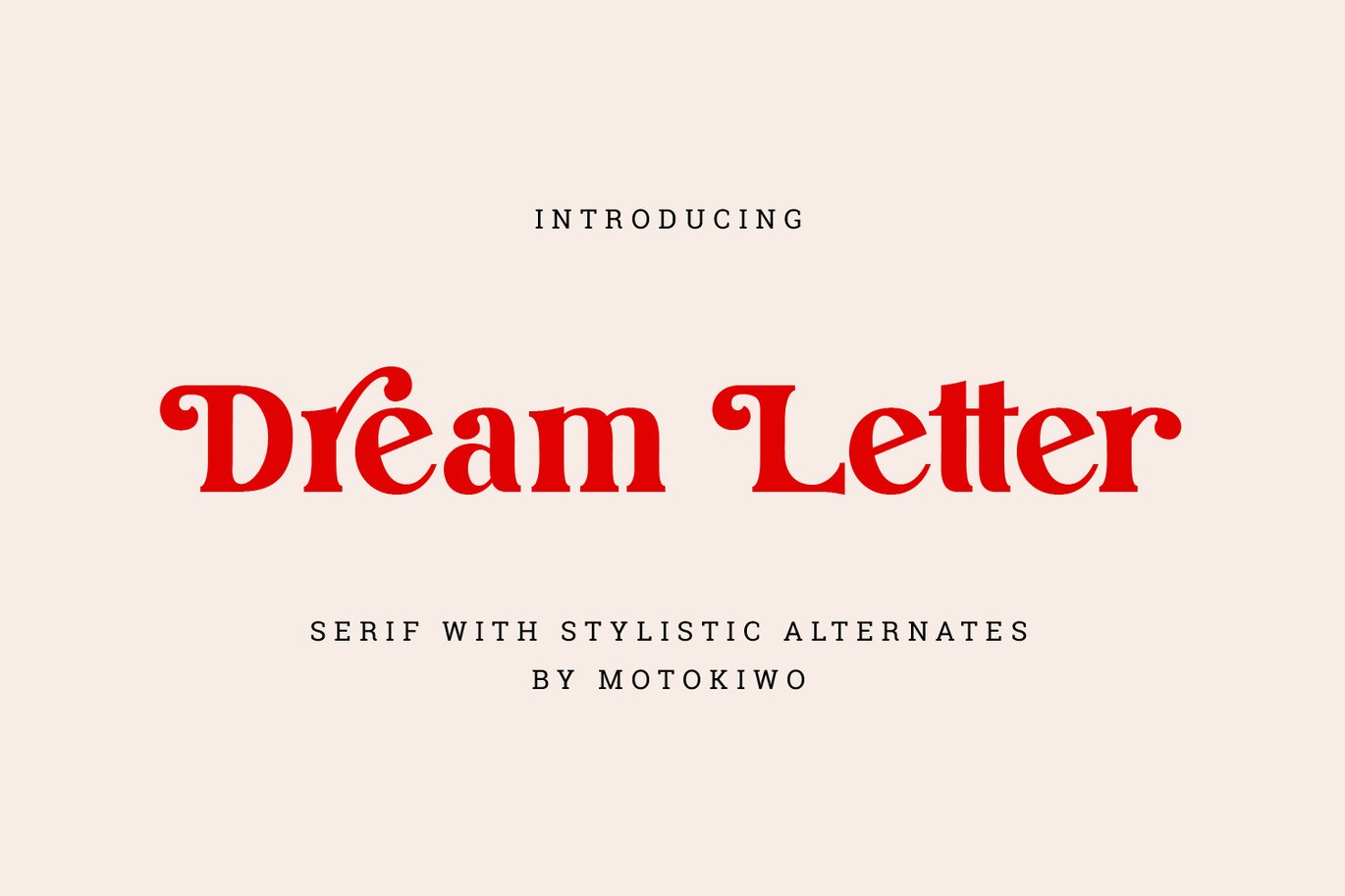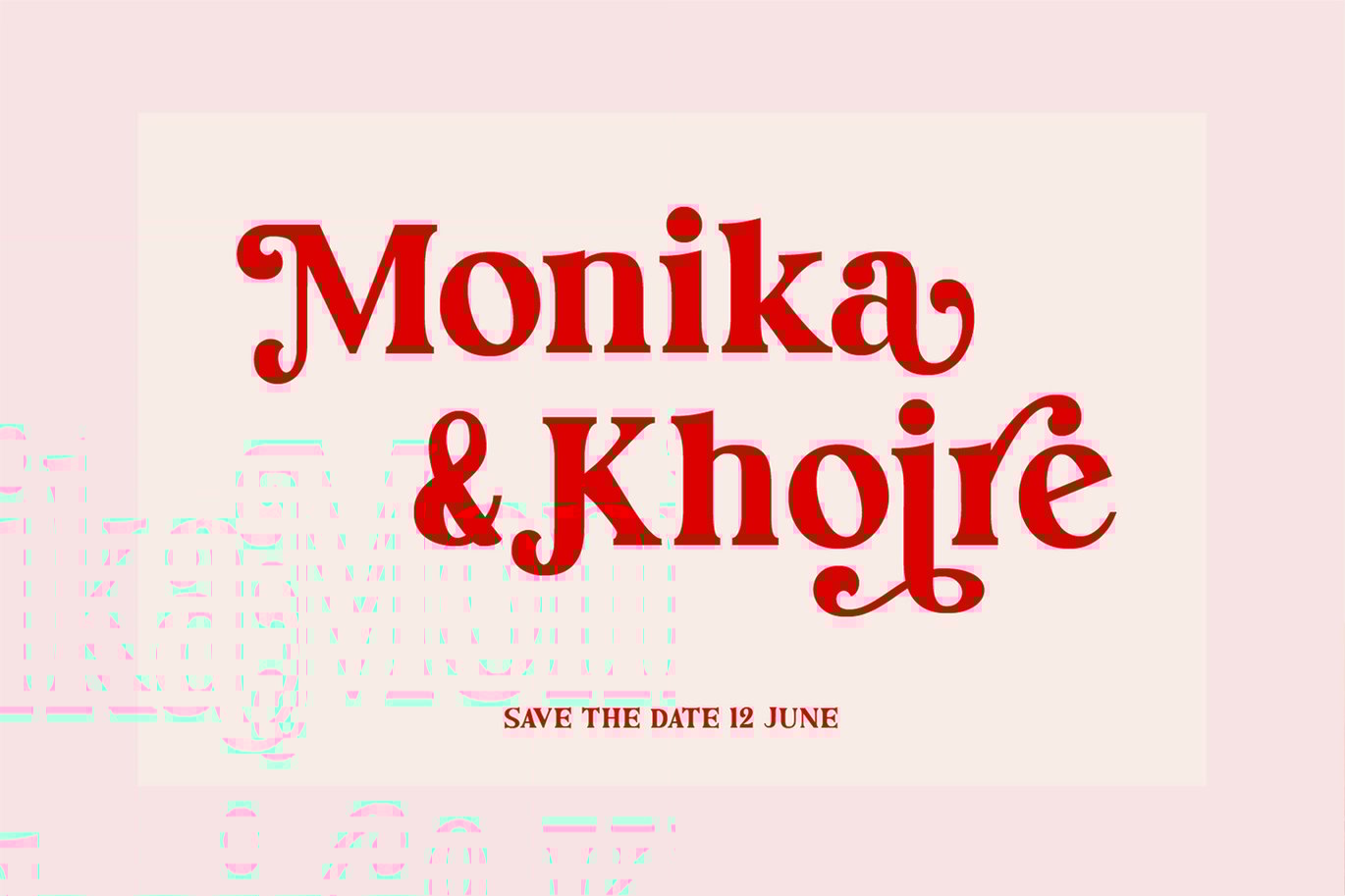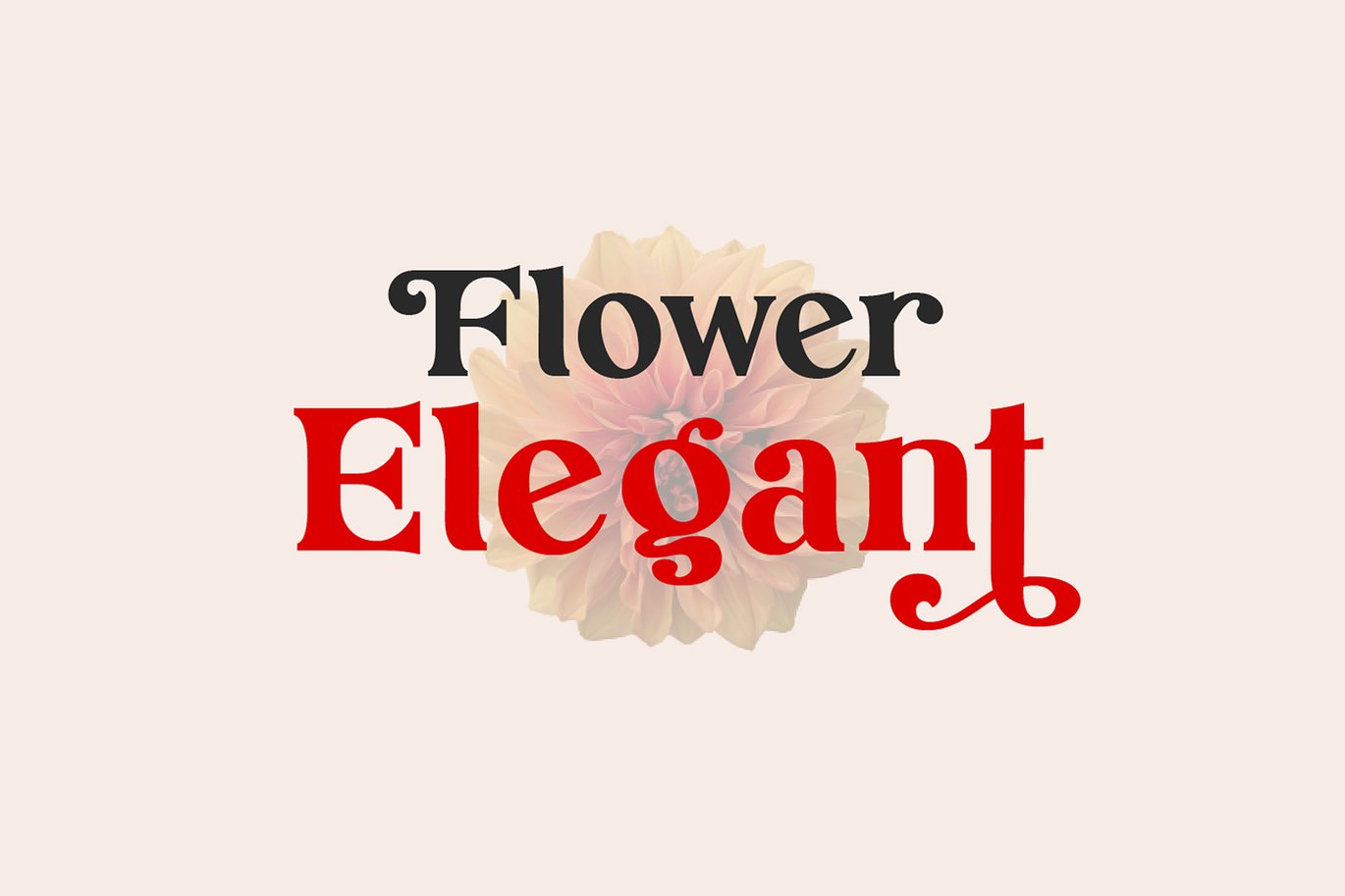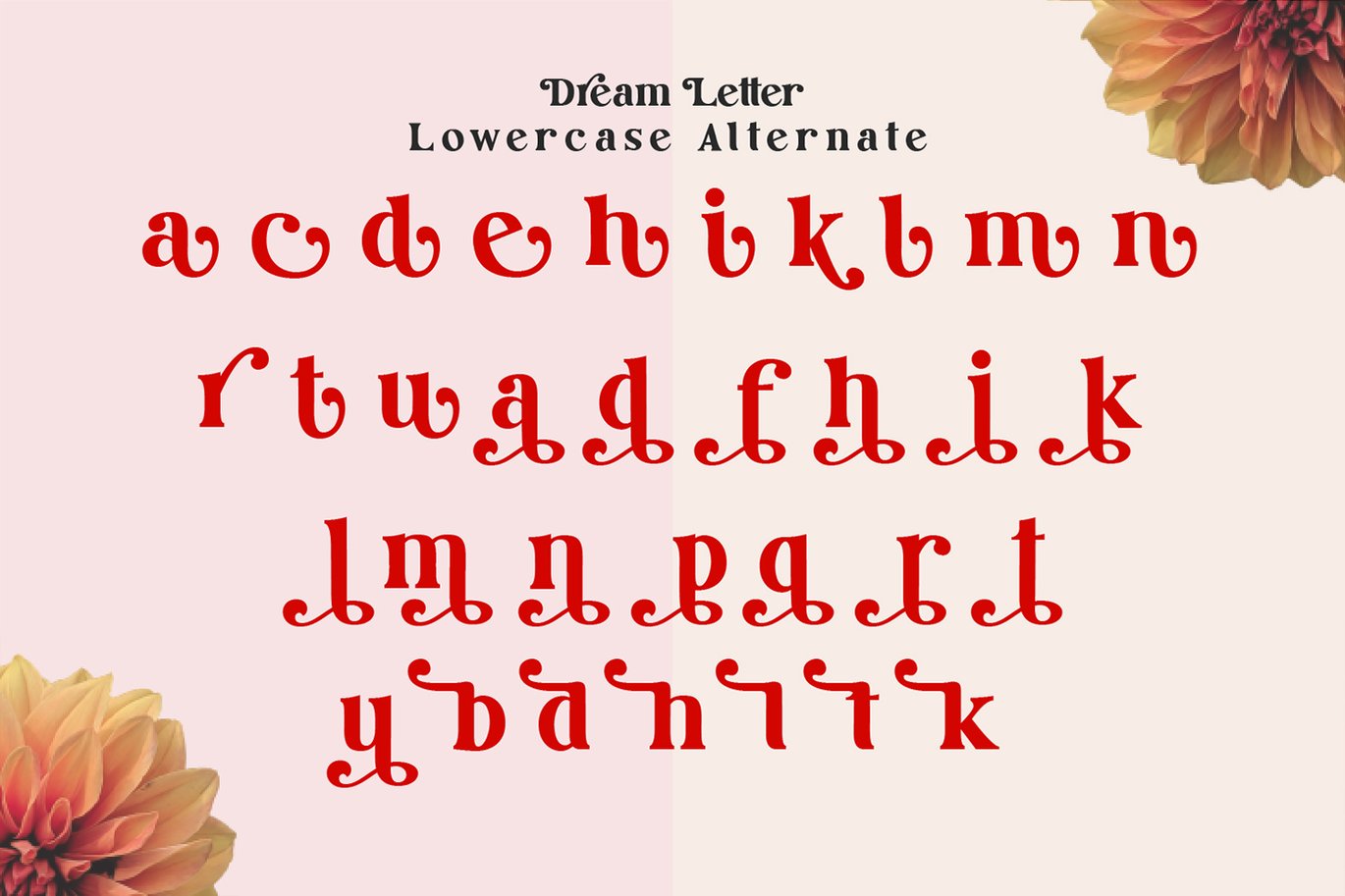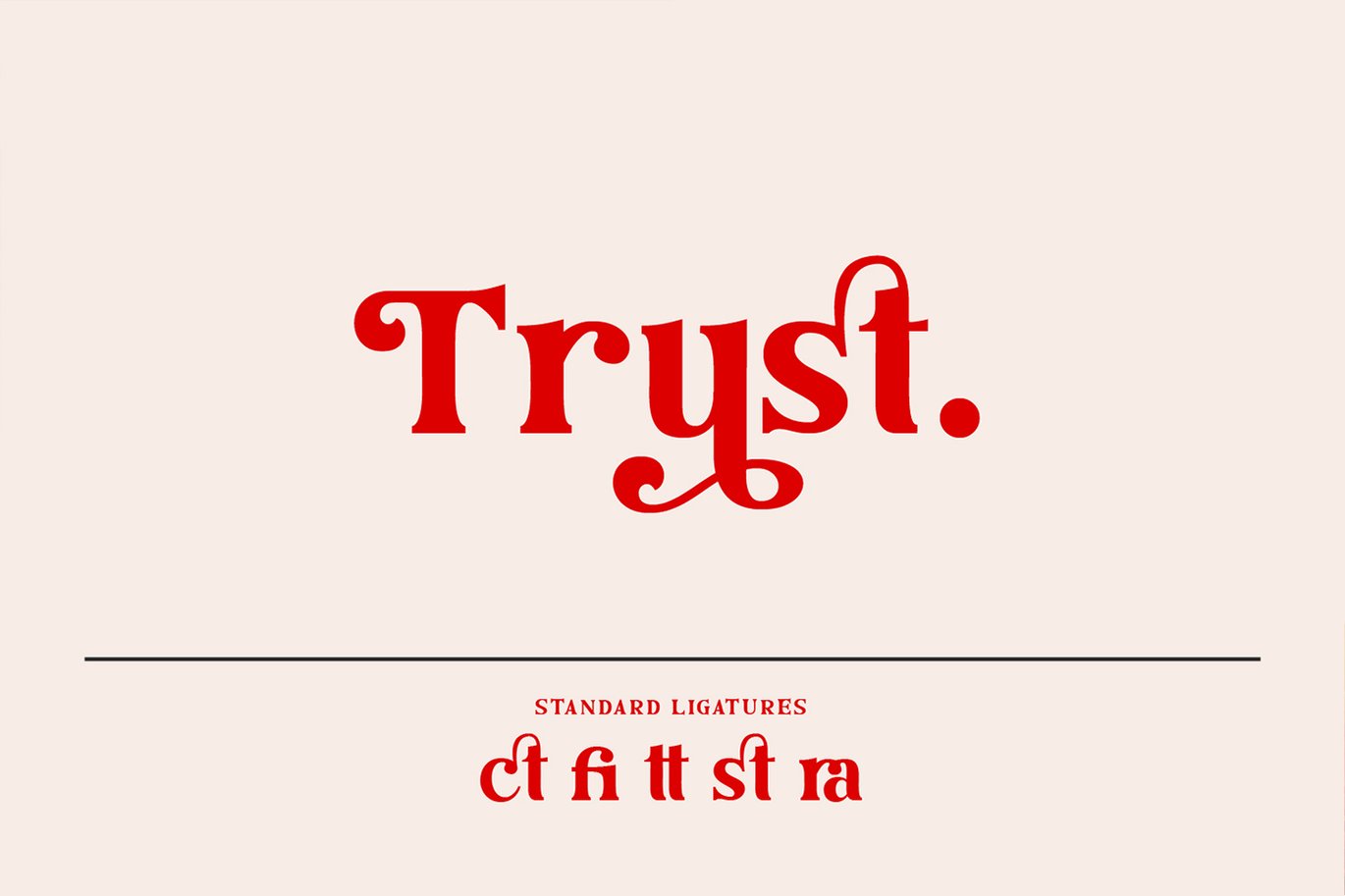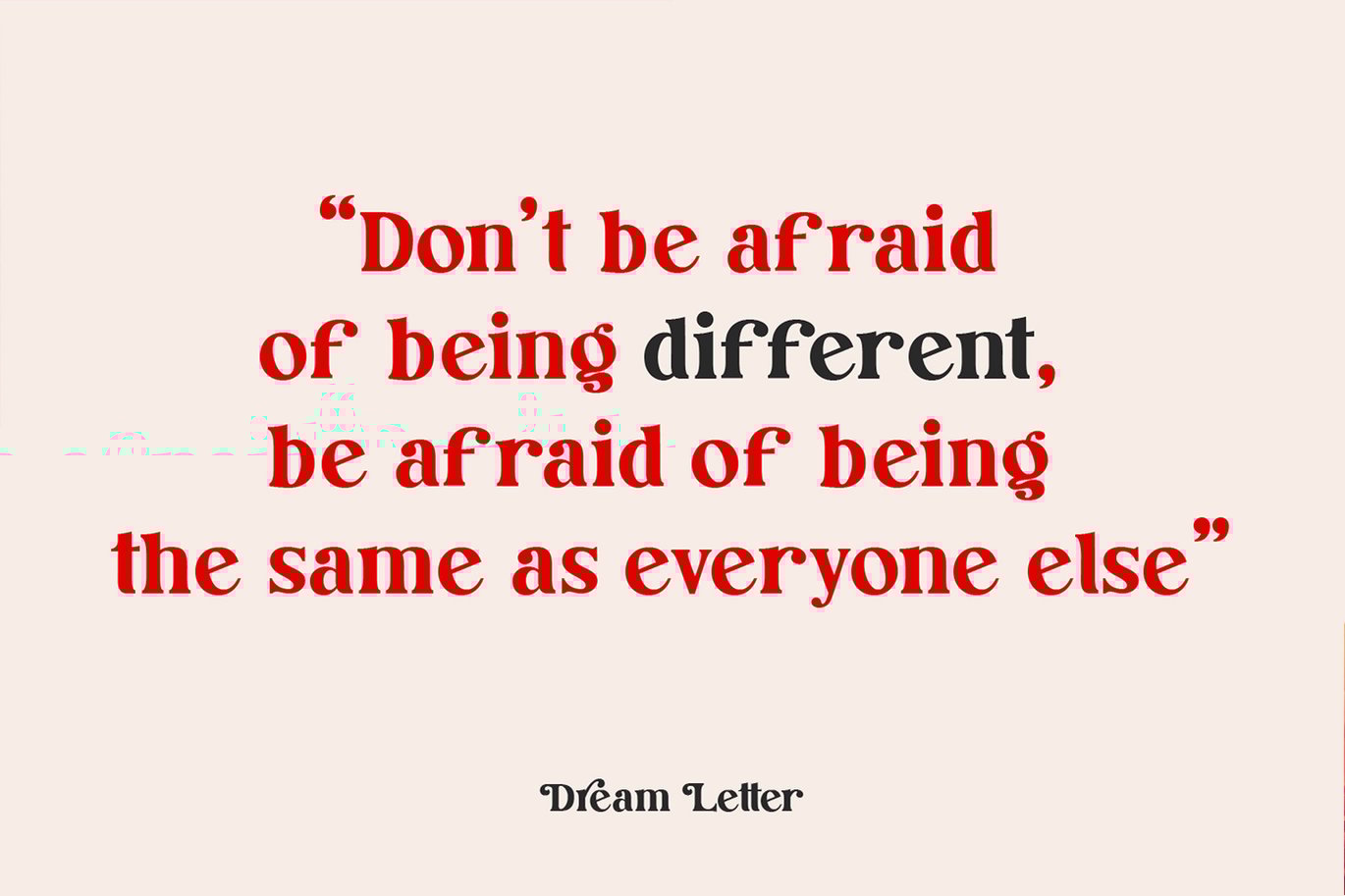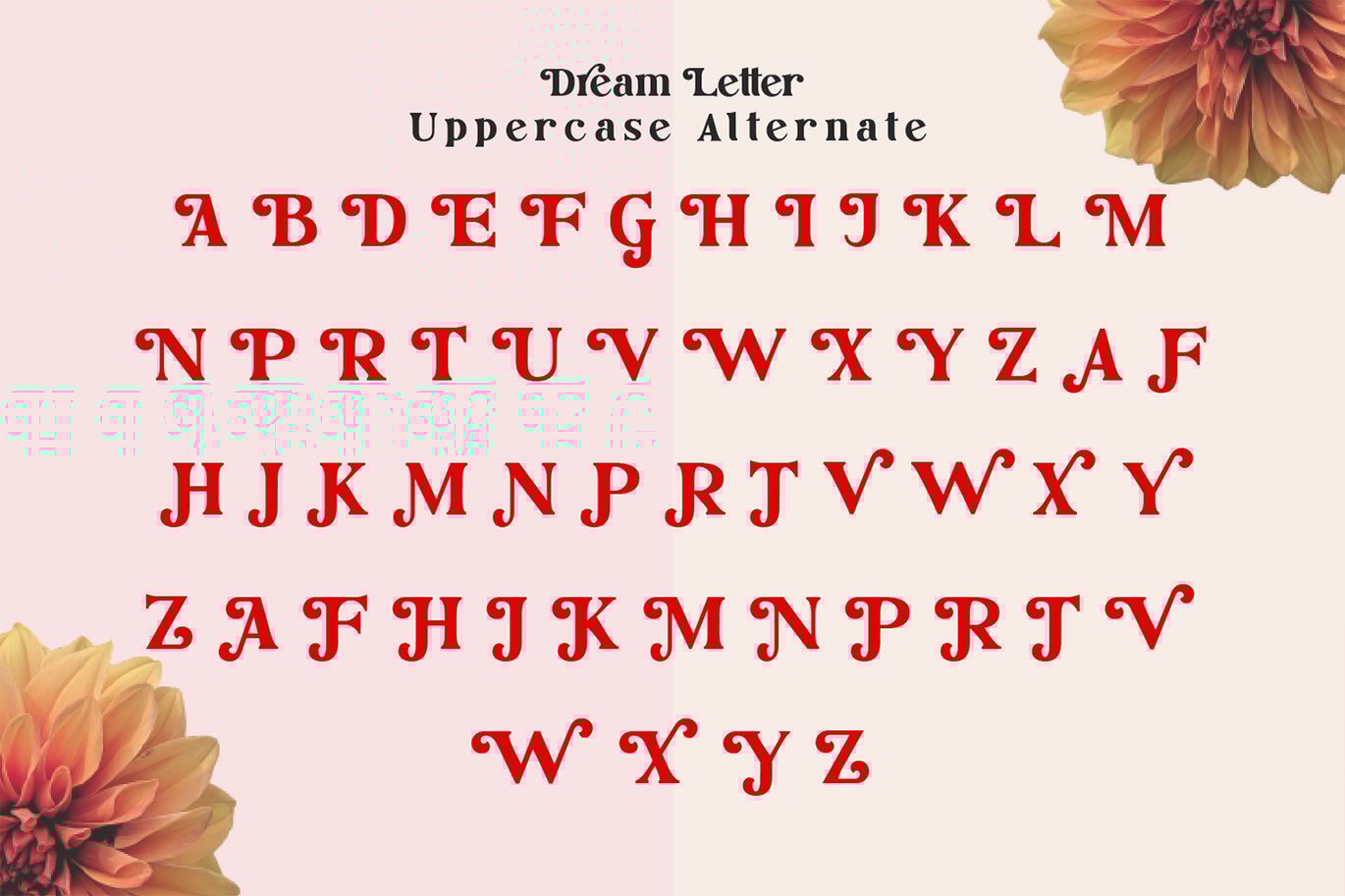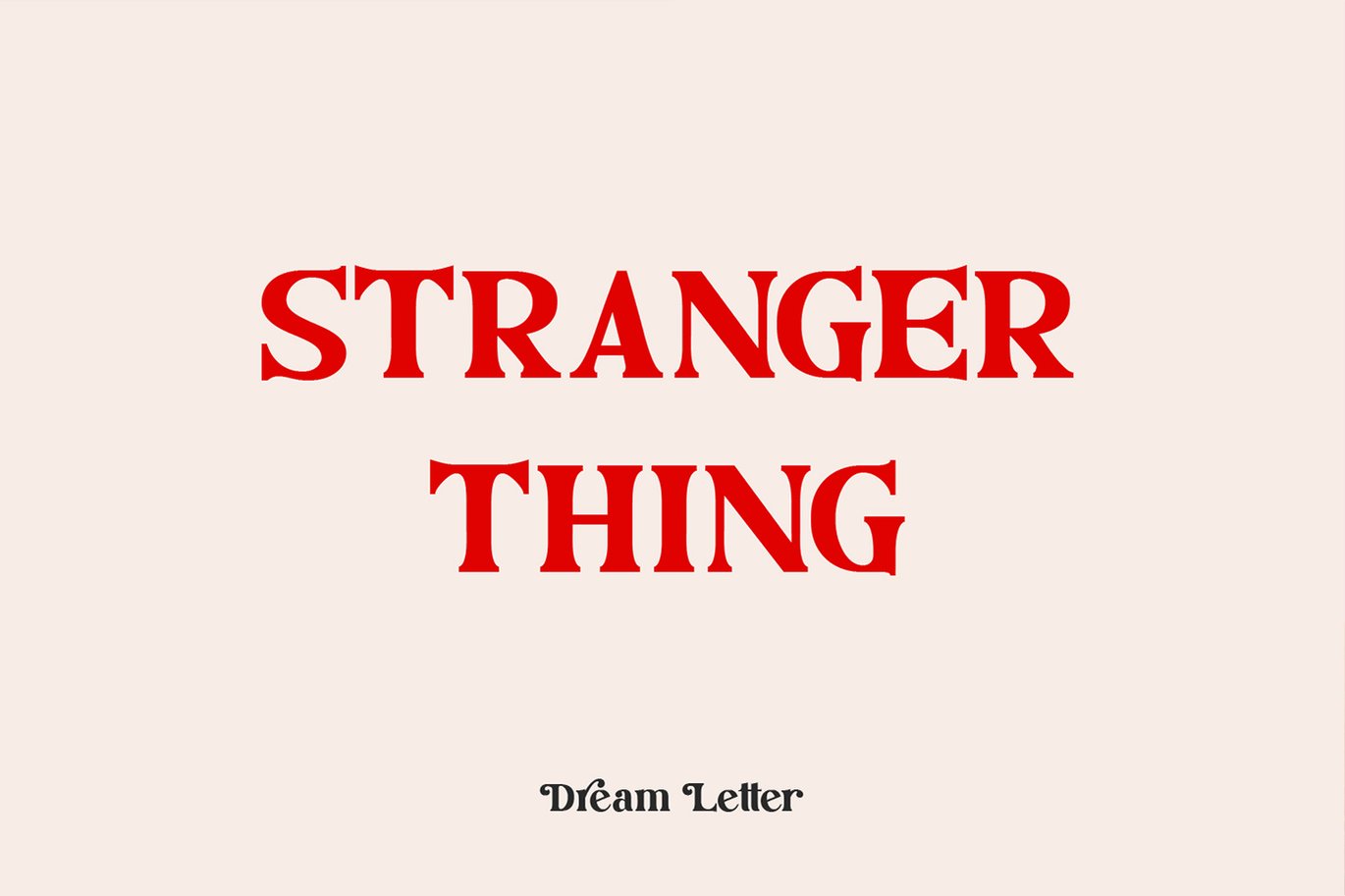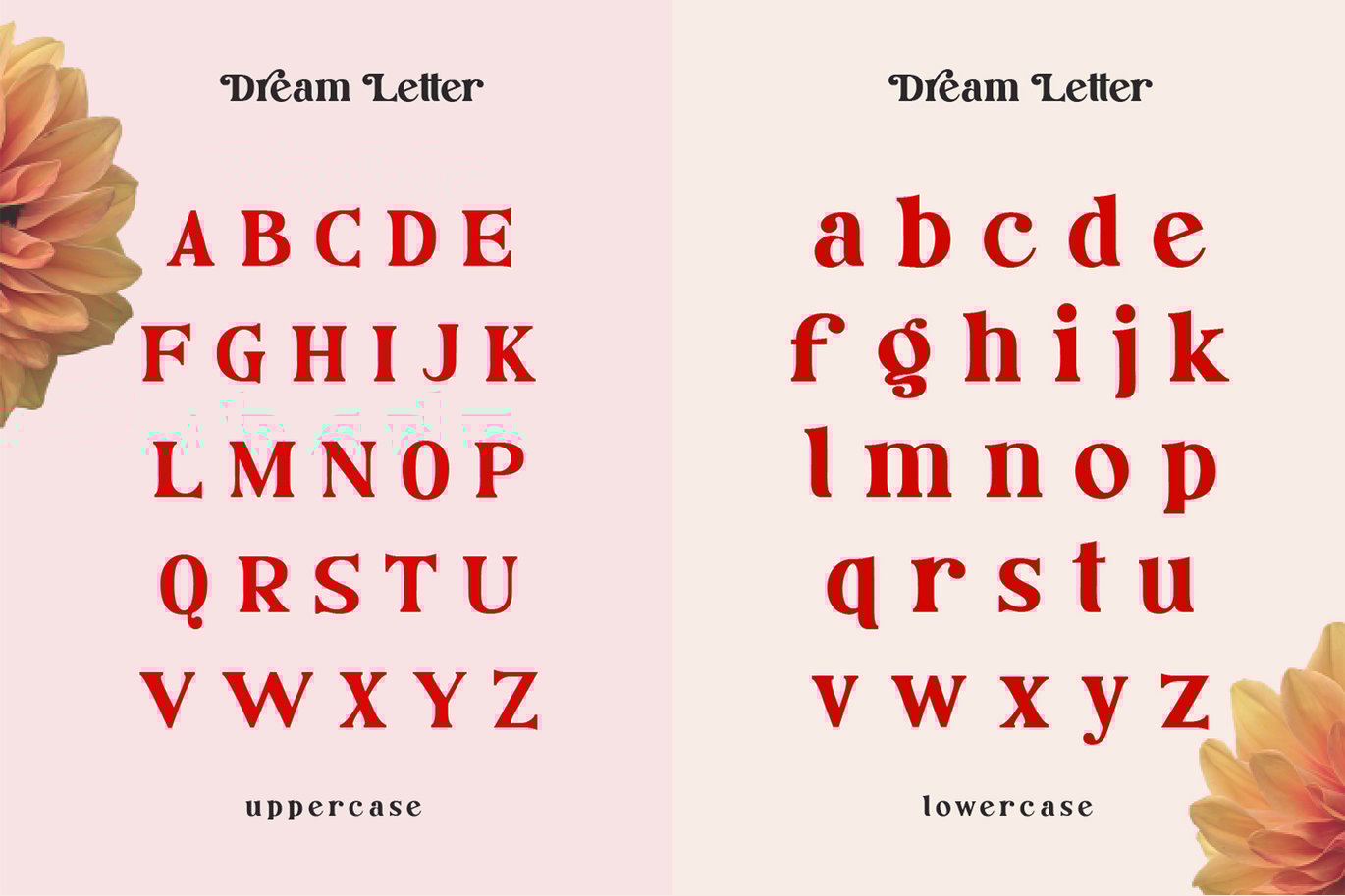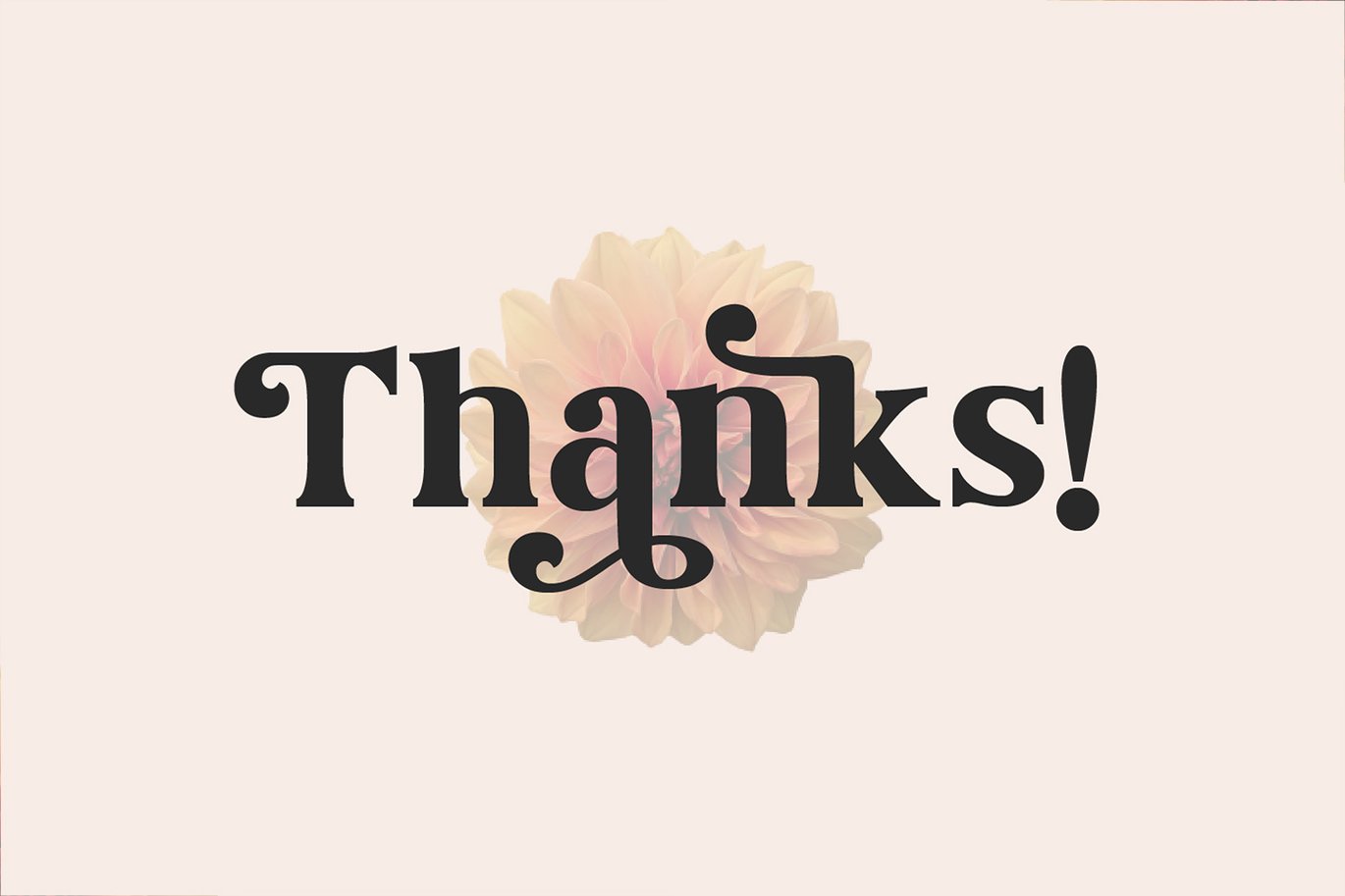
Dream Letter, Display Serif Font
Dream Letter, serif font with stylish alternates that will stands over your project. This will be great for logo, headline, poster, branding, and more. Most of uppercase and lowercase have alternate that you can use for bring the stylish feel into your words.